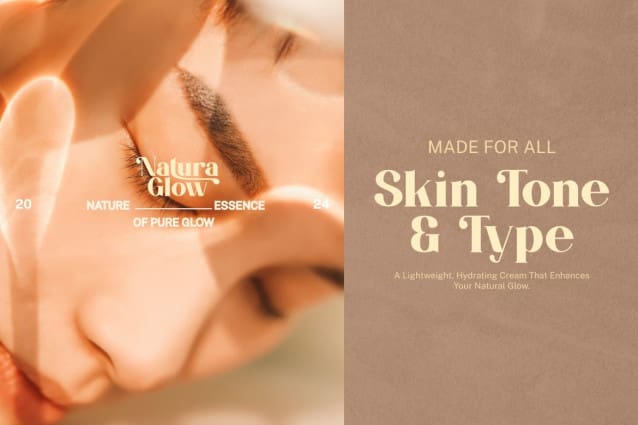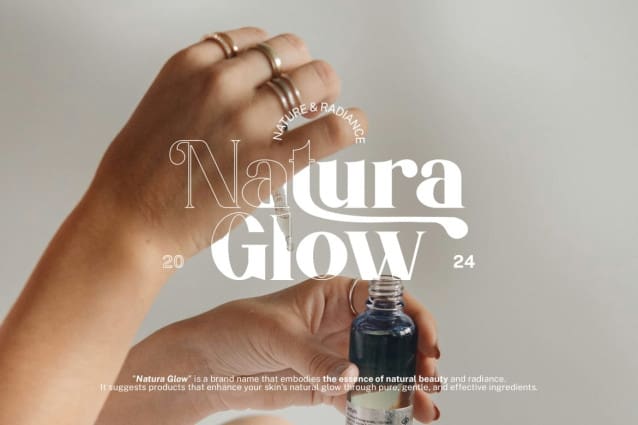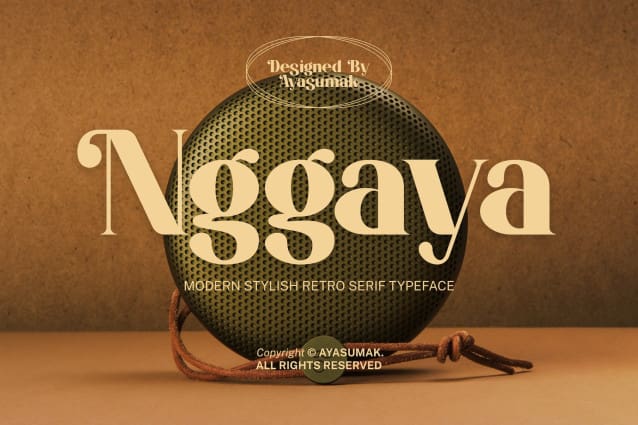
Nggaya Font
Nggaya Font – Stylish Retro Rounded Font – a modern professional typeface ideal for headline or title, logo, merchandise, apparel, magazines, beauty and fashion products, cosmetics, skincare and many more.